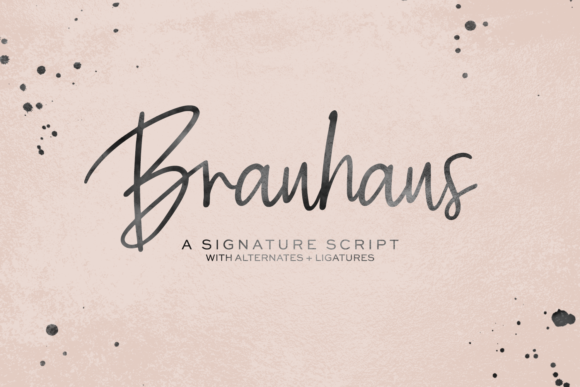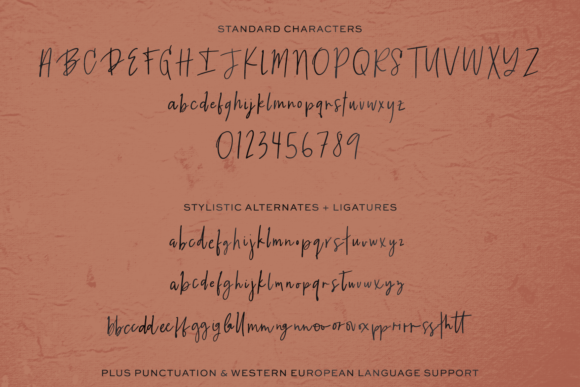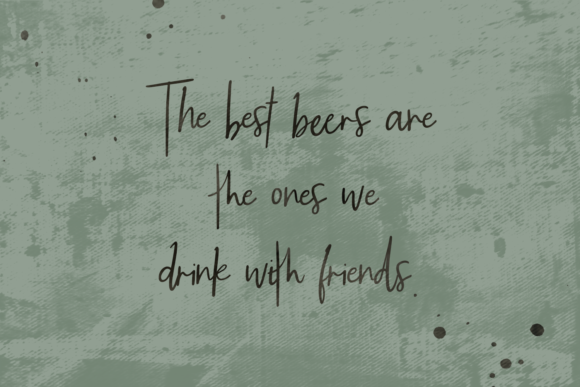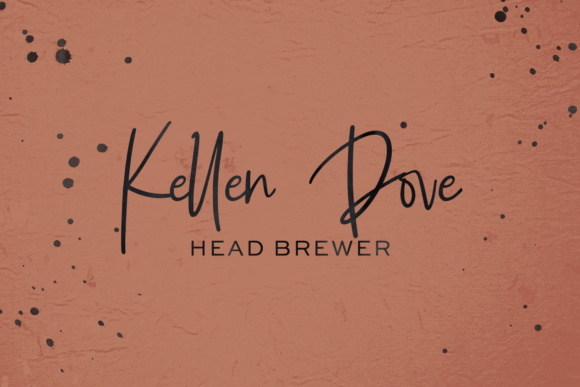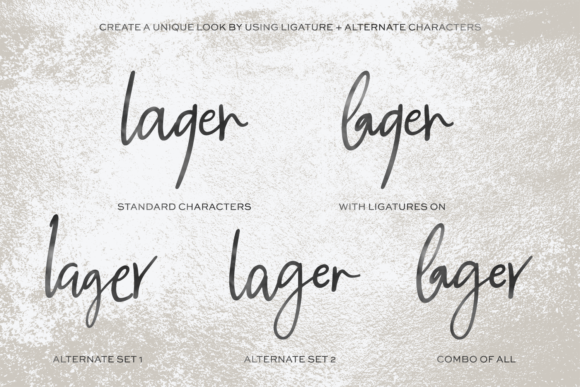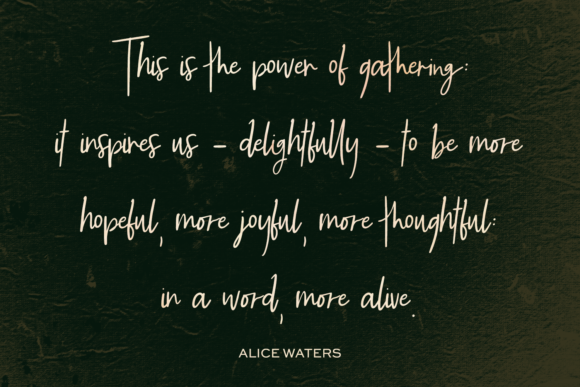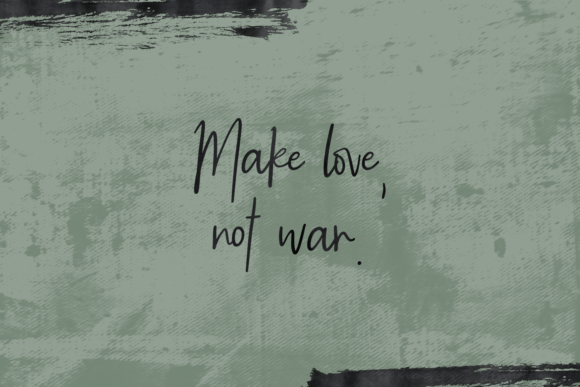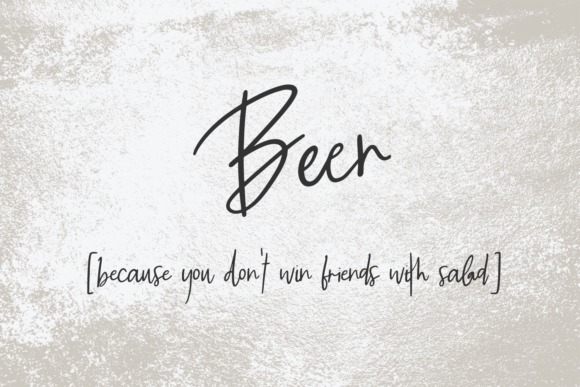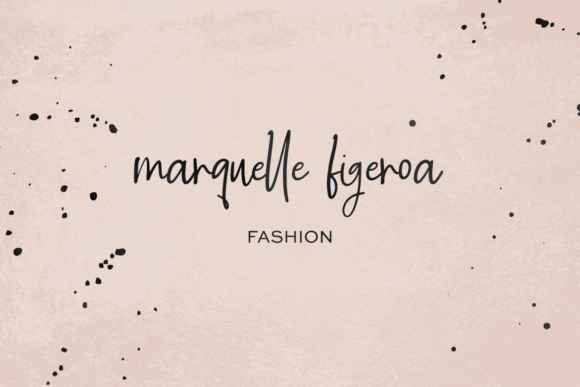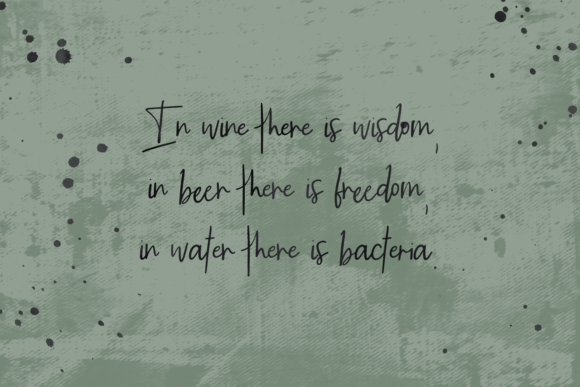
Brauhaus Font
About Brauhaus Font
Brauhaus is a signature style script typeface that mimics the imperfect flow of handwriting. It will add a unique touch to any design project!